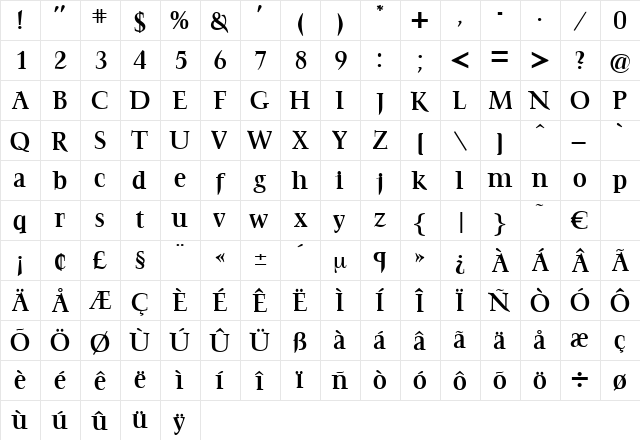
FrancoisBold Regular
Design Context for FrancoisBold Typeface
FrancoisBold takes a measured approach to typography — its balanced proportions and neutral character make it a reliable workhorse for both digital and print work. The heavy weight commands attention and anchors typographic hierarchies.